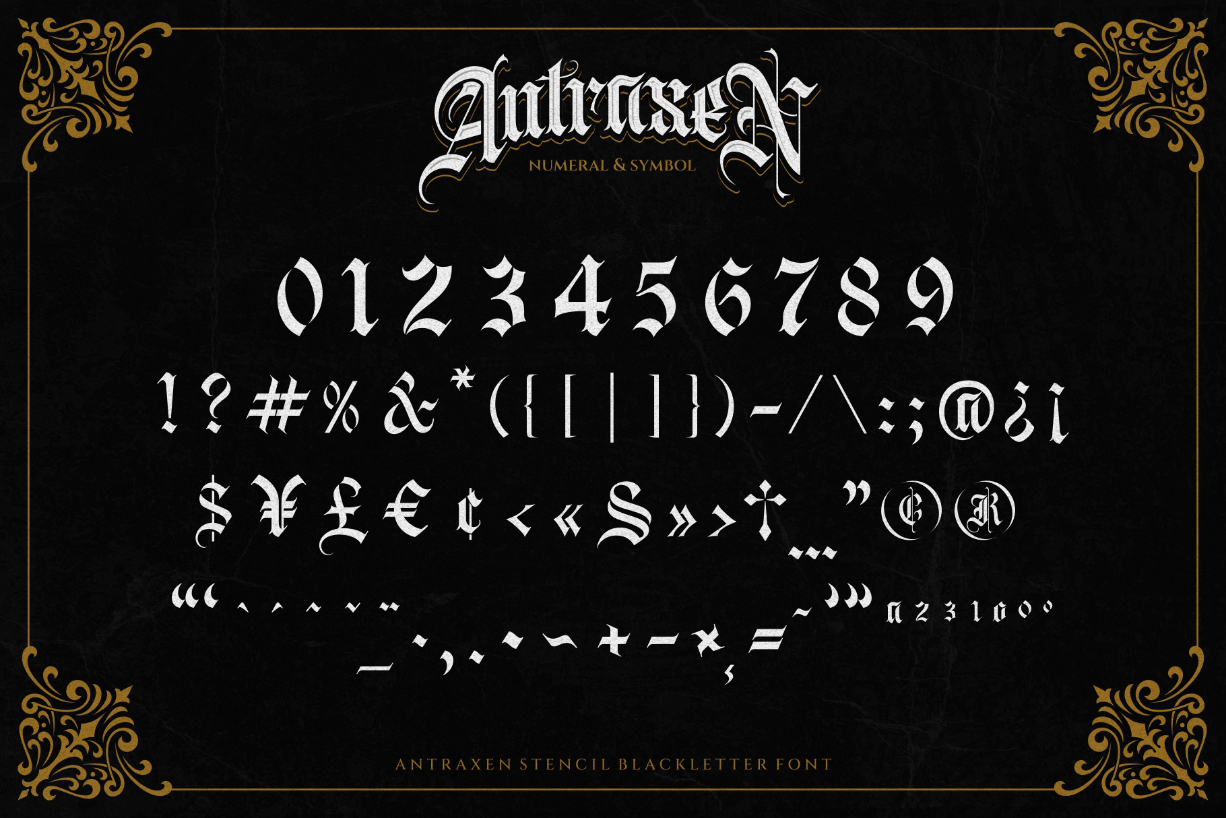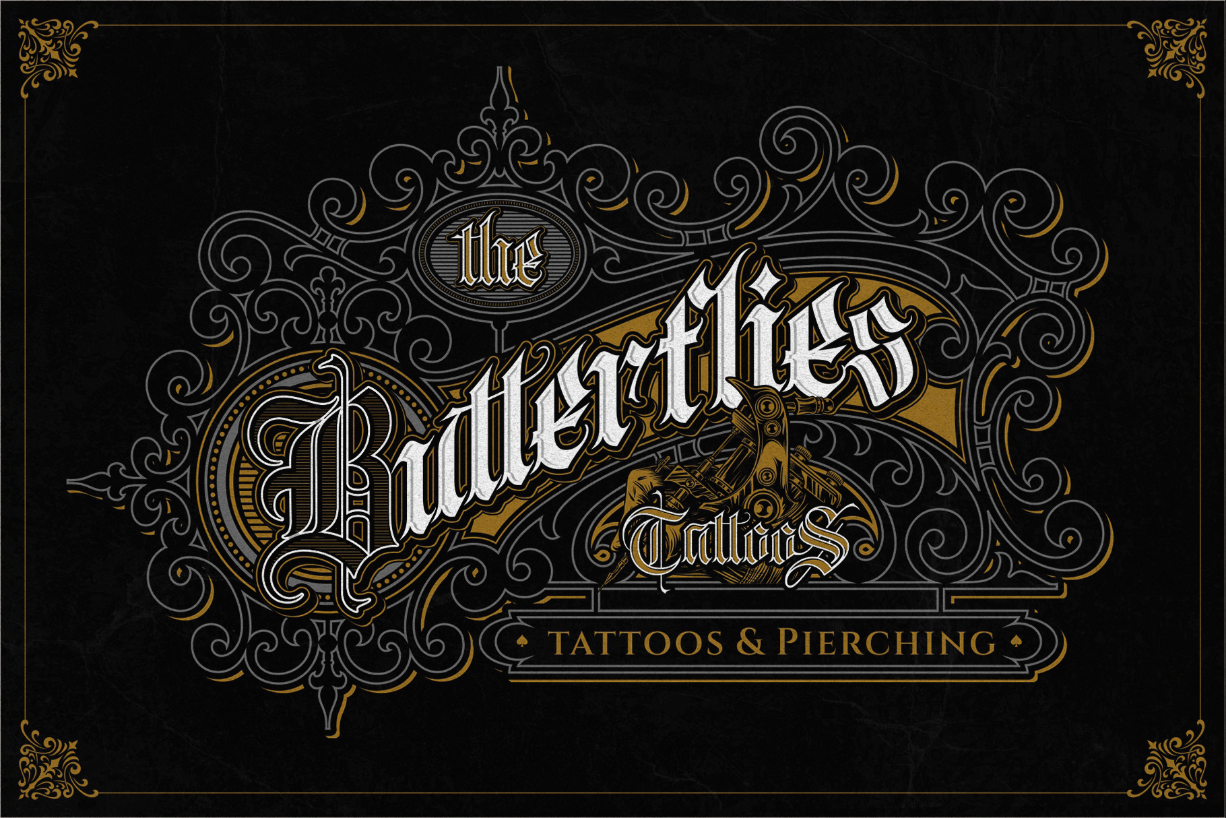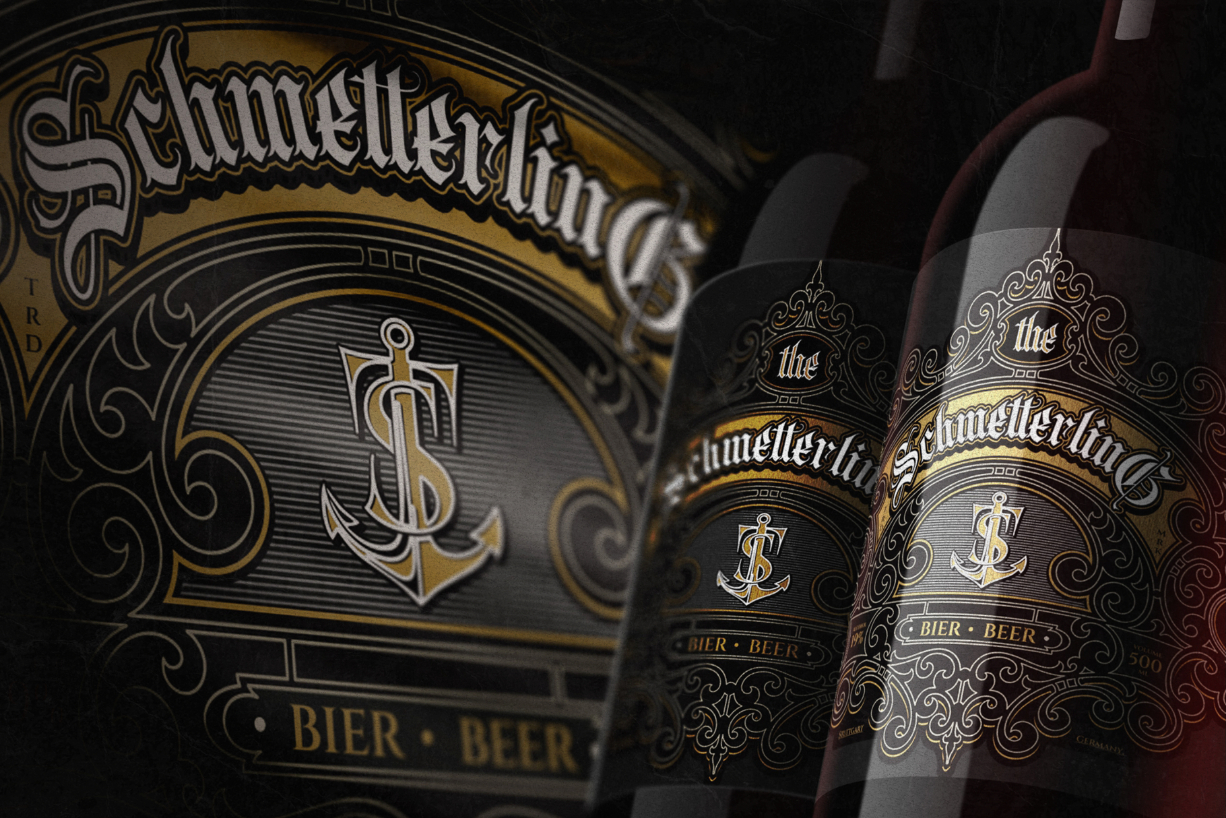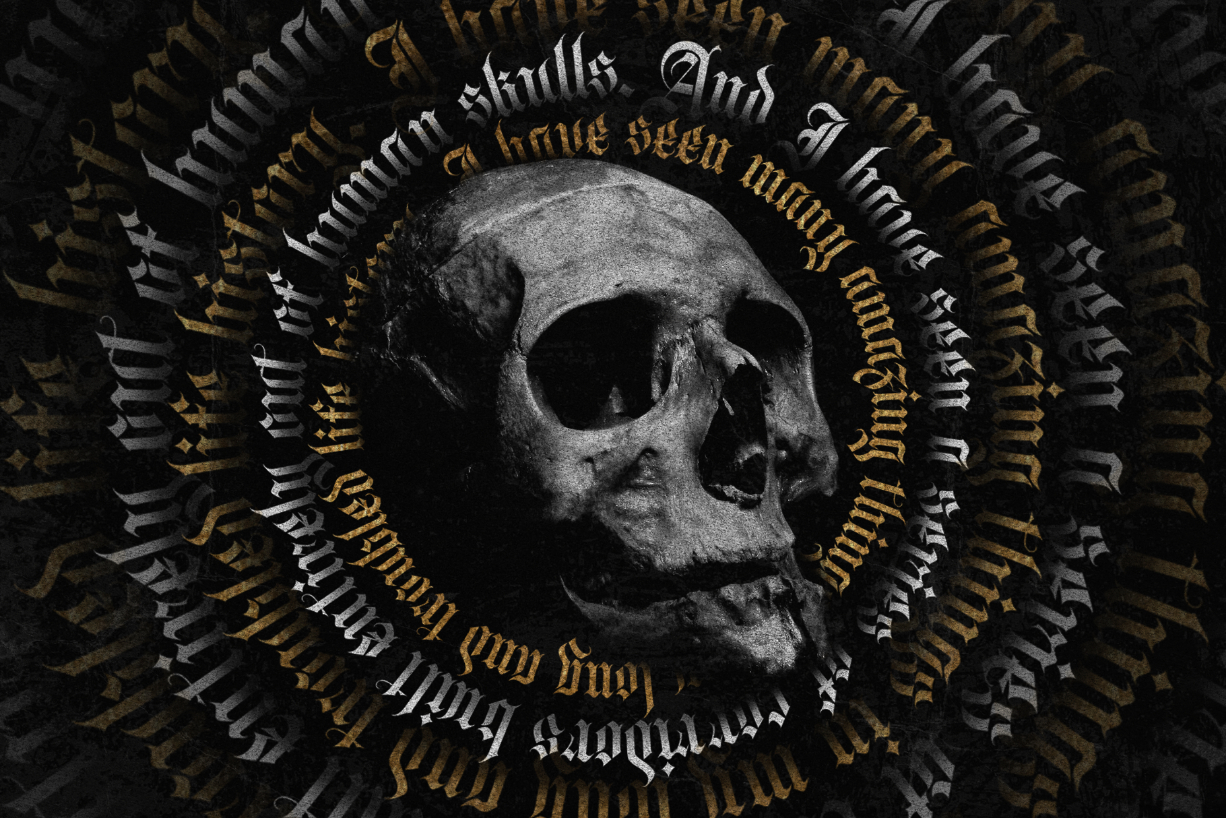
About Antraxen Font
Antraxen is a Blackletter vintage font that still has the original feel with a little extra as if it were a stencil. Antraxen font is very suitable for brands that need a classic and gothic style, as for liquor brands, logos, and label designs. Besides that, this font is also synonymous with tattoos, tattoo studio logos, and the tattoo design itself.